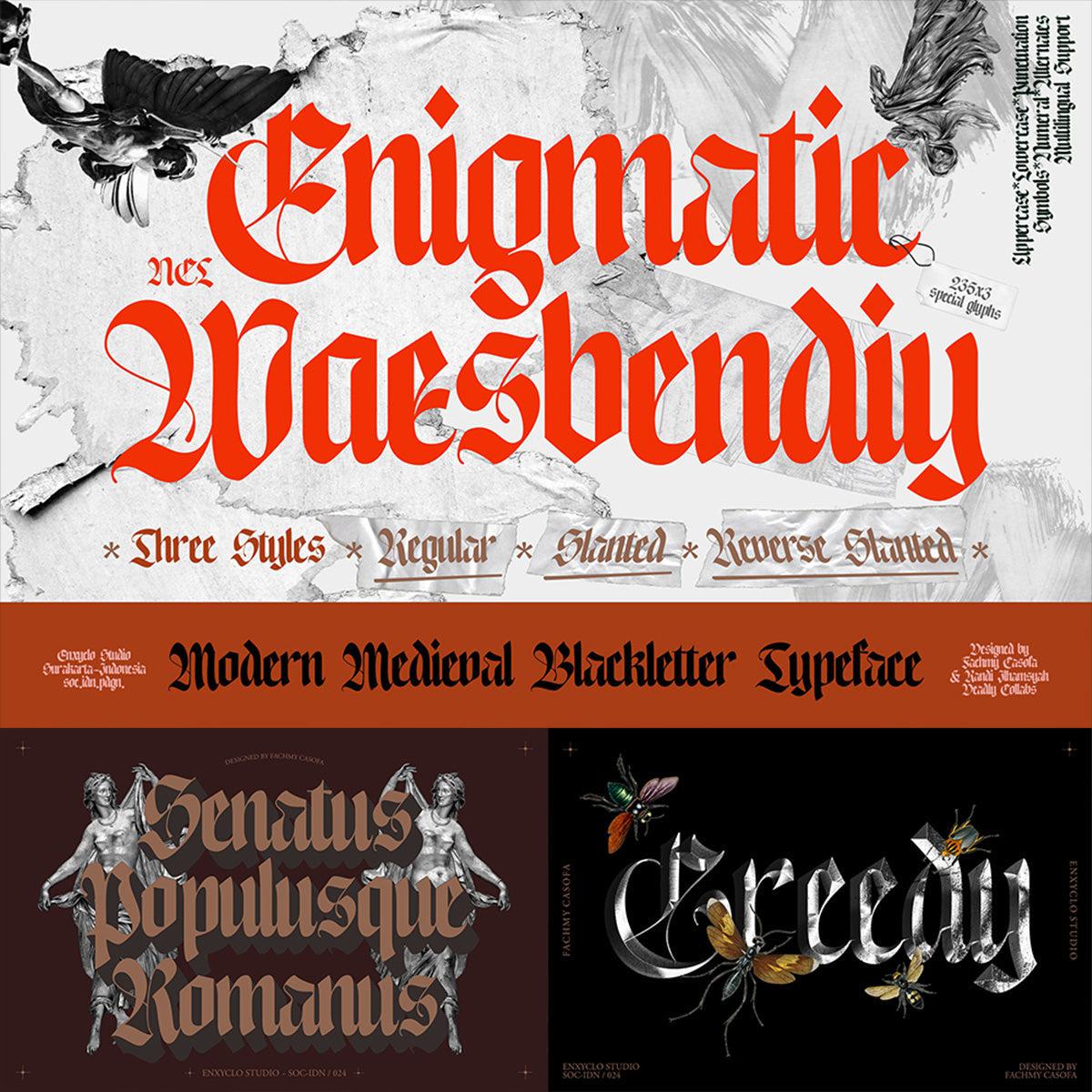
Looking for the best bold fonts to give your branding a proper personality injection? These 14 cool bold fonts have the right mix of punch, polish, and panache. From retro-inspired sans serifs to futuristic cyberpunk styles, this lineup serves serious style without sacrificing legibility. Whether you’re crafting a logo, building a visual identity, or designing pitch-perfect packaging, these bold logo fonts deliver instant impact. Expect clean lines, dynamic ligatures, multilingual support, and more – all in formats that play nice with your favourite design tools. Each entry below lists the font name so you can find the exact typeface you like. Let’s get into it.
Golte is the kind of font that means business. It’s bold, clean, and carries that no-fuss modern sans serif look with just enough flair to stand out. Great for branding that needs to feel trustworthy but not boring – think tech, editorial, or even fashion. With crisp lines and a geometric touch, Golte shines in bold headlines or as a strong logotype. Comes in OTF format for easy use across apps.
A little gothic, a little glitchy – Blackletter Bit Display brings a pixel-powered blackletter style that’s somehow both medieval and futuristic. Ideal for edgy brands or digital projects looking to break the grid. You get uppercase, lowercase, and a bunch of special characters in OTF, TTF, WOFF and WOFF2 formats, plus multilingual support to boot.
Brooch is bold, wide, and dripping in retro charisma. This sans serif stunner mixes nostalgia with geometric precision, making it killer for posters, logos, or anything needing a bold visual punch. Its unique ligatures and all-caps attitude give you instant brand presence, especially when paired with clean, minimal layouts.
Promaja Grotesk is a clever blend of soft curves and sharp edges. Available in Regular and Italic, this display sans works hard for branding projects that want both structure and charm. The multilingual support is a huge plus if you’re designing across regions. A strong fit for packaging, magazines, or indie startup identities.
If your brand leans industrial, Mechanic is a grungy, boxy standout. Think bold signage, cyberpunk apparel, or high-impact posters. It’s bold and distressed with a gritty, textured vibe – a proper workhorse for edgy branding. Characters A-Z, numbers, and symbols are included, but check for format details before locking in your workflow.
This one’s for the modern medieval crowd. Enigmatic Waesbendiy brings blackletter styling into the now with three dramatic styles and over 700 glyphs. Great for music branding, tattoo shops, or heritage-themed visuals. With OTF, TTF, and WOFF formats, it's ready to plug into any design stack.
ROCKFALL is a bold retro typeface born from 70s rock posters and chunky signage. It’s loud, proud, and packed with over 150 alternates and ligatures to fine-tune your logotypes. Comes in 8 font styles and supports 90+ languages. This one’s made for brands with big personalities and loud aesthetics.
Vacene is playful with a bubble style that screams Y2K energy. Hand-drawn and bold, it’s got letter variations and a retro flavour that works beautifully on posters, event branding, or kid-focused products. A full letter set, symbols, and numerals make it flexible and fun. That same hand-drawn, retro-flavoured energy runs right through display type for 70s packaging, which goes deeper into the decade than one bubble font can.
Bootzy Condensed TM feels like DIY zine culture meets digital grime. This rugged sans serif includes stylistic sets that auto-shift glyphs for extra texture. Perfect for grunge branding, gig posters, or underground fashion labels. It’s loaded with multilingual glyphs and supports OTF, TTF, and WOFF2.
Bold and Japanese-inspired, OUNEN brings a stylised serif twist that’s made for fashion, posters, or brand identities with cultural cues. Comes with 4 alternates per letter and supports OTF/TTF and WOFF. It’s a standout choice for high-concept branding work.
Amecha is what you reach for when your brand’s gone full mecha-mode. Futuristic and cyber-slick, this display font includes 8 stylistic alternates and everything you need for modern sci-fi aesthetics. Perfect for streetwear, gaming, or concept branding. Formats? OTF, TTF, and WOFF, of course.
Sharp and circular, Paradise Typeface captures a sleek sci-fi vibe with a monospace twist. This one’s great for tech products, fashion collabs, or anything needing a space-age flair. The bold, futuristic style fits beautifully into high-concept branding and experimental layouts.
NEWCAPS is your tall, dark, and condensed hero font. Designed for headlines and logos, it offers four distinct styles and supports 44 languages. Ideal for poster work, lifestyle branding, or any identity system that needs big typographic presence. Includes OTF, TTF, and WOFF formats.
ASTONIC is a bold brush script with a cyberpunk soul. It blends brushy movement with mechanical structure, making it a go-to for modern branding with an edge. Includes TTF, OTF, and WOFF formats plus 87 language support and 9 ligatures. Works in Adobe and Corel workflows.